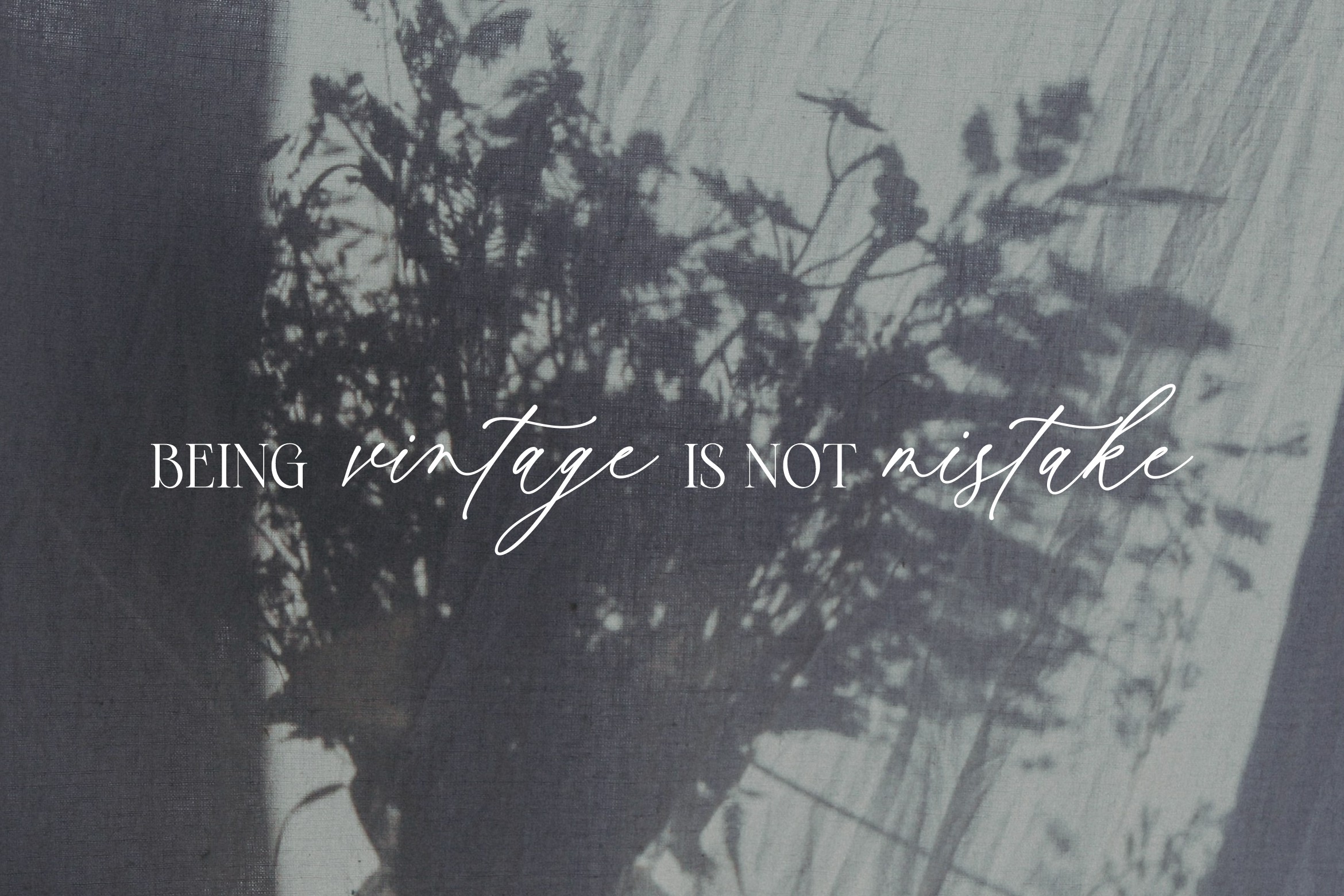
Vintage Loving Font
Vintage Loving Calligraphy Font
It’s an elegant and chic calligraphy font. Font with natural flow and feminine style. Each letter is deliberately imperfect to make it look more natural and charming.
Vintage Loving is perfect for many design needs such as merch, T-shirts, titles, book covers, social media posts, websites, events, and many more.